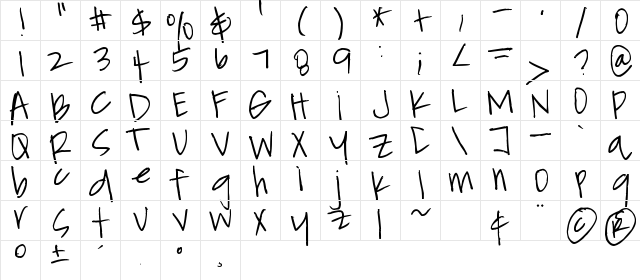
ChickenScratch Regular
Design Context for ChickenScratch Typeface
ChickenScratch is a composed and adaptable typeface that performs quietly and consistently across a wide range of design contexts.